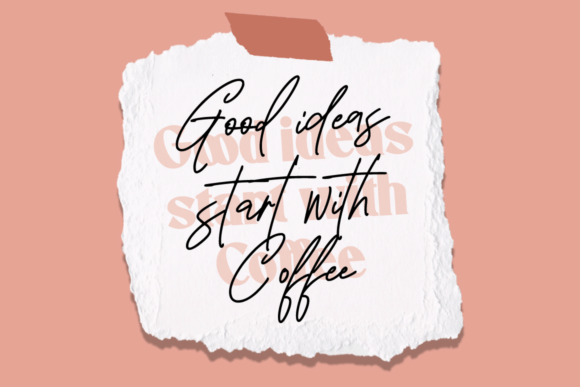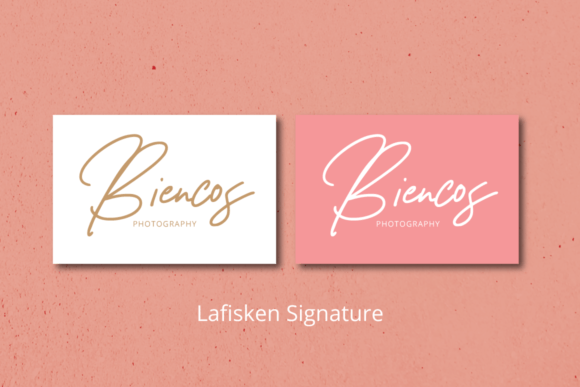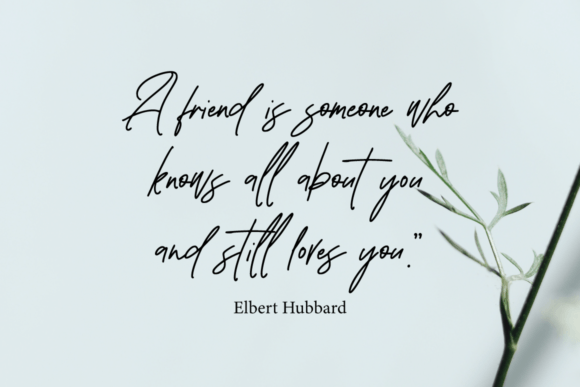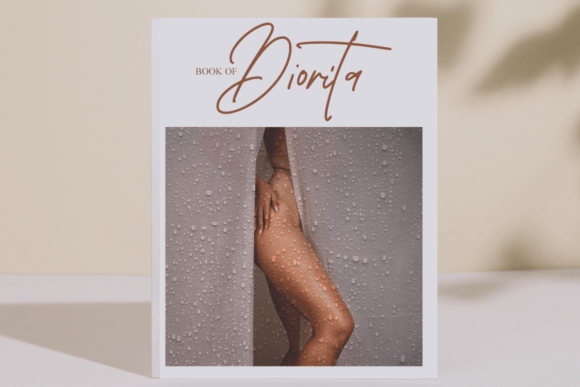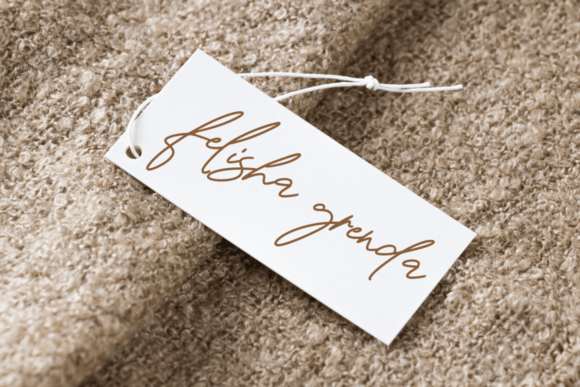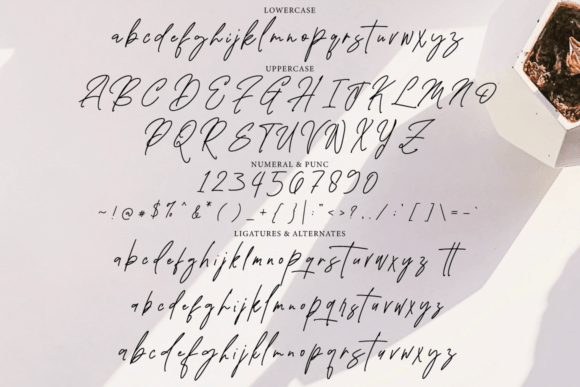
Introduction to Lafisken Font
Have you ever found yourself in a moment of pure creative bliss, surrounded by endless possibilities and a blank canvas waiting to be filled with your imagination? For designers, these moments are the epitome of joy and inspiration. And, sometimes, all it takes is the perfect design resource to bring our ideas to life. That’s where the Lafisken Font comes in – a stunning, flowing handwritten font that adds an elegant touch to any project.
As a valuable addition to any designer’s toolkit, the Lafisken Font is a high-quality resource that’s perfect for creative projects that demand a personal and unique touch. With its transparent background and free download option, this font is an excellent choice for designers looking to add a touch of sophistication to their designs without breaking the bank.
Key Features of Lafisken Font
- Lafisken Font is a high-quality design resource ideal for creative projects requiring a unique and elegant touch.
- This font family offers a transparent background, allowing for seamless integration into various design elements.
- Lafisken Font features a resolution of 300 DPI, making it suitable for both digital and print-based creative projects.
- With its sophisticated design and elegant aesthetic, Lafisken Font is an excellent choice for designers seeking to add a touch of sophistication to their work.
- The font’s unique characteristics, including its subtle texture and refined lines, make it an ideal choice for designers working on high-end creative projects.
Honest Review: Lafisken Font
I recently had the chance to work with the Lafisken Font, and I must say, it’s a great addition to any designer’s arsenal. This font is perfect for designers looking for a high-quality design resource to bring their creative projects to life.
- ✨ Unique and creative design that’s sure to stand out in any project
- ✨ Clear and transparent background that makes it easy to work with
- ⚠️ Limited character set, which may not be suitable for projects requiring extensive text
- ⚠️ Not all characters are available for transparent background use
Overall, I’m impressed with the Lafisken Font. While it may have its limitations, it’s a great option for designers looking for a unique and creative font to add some personality to their projects. With a little planning, you can work around its limitations and still achieve great results.
Tips for Getting the Most Out of Lafisken Font
Use the Lafisken Font with a transparent background to create a visually appealing design element. Experiment with different font sizes and colors to add depth and interest to your design. You can also use the Lafisken Font in combination with other design elements to create a unique and creative project.
The Lafisken Font is a versatile design resource that can be used in a variety of creative projects. Some common use cases include:
- Poster design